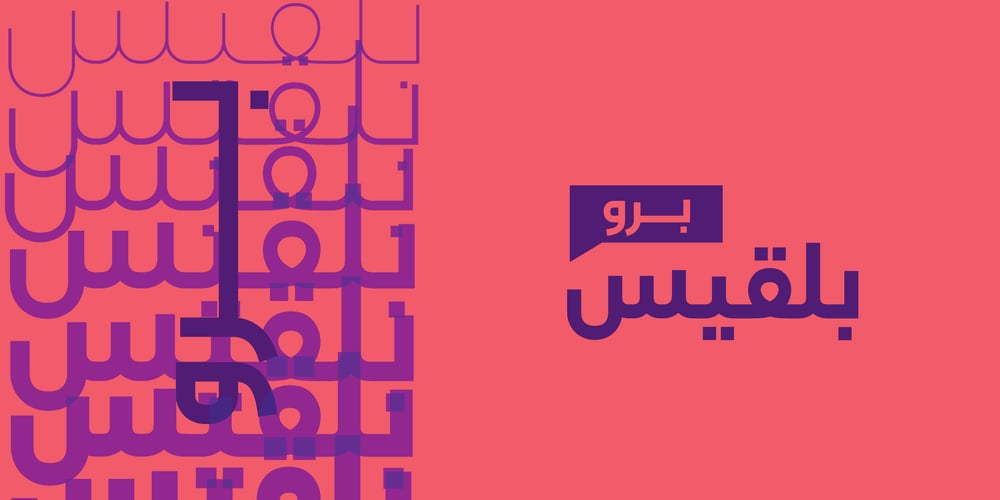
Belqees Pro
Belqees Pro font
Belqees Pro Font Family was designed by Ali Almeethali and published by GHEEN Studio. Belqees Pro contains 9 styles and family package options. Belqees Pro is a modern Arabic and Latin typeface that belongs to the Kufi font family. This version is distinguished by an improvement in the form of the typefaces, as well as many additions for different uses